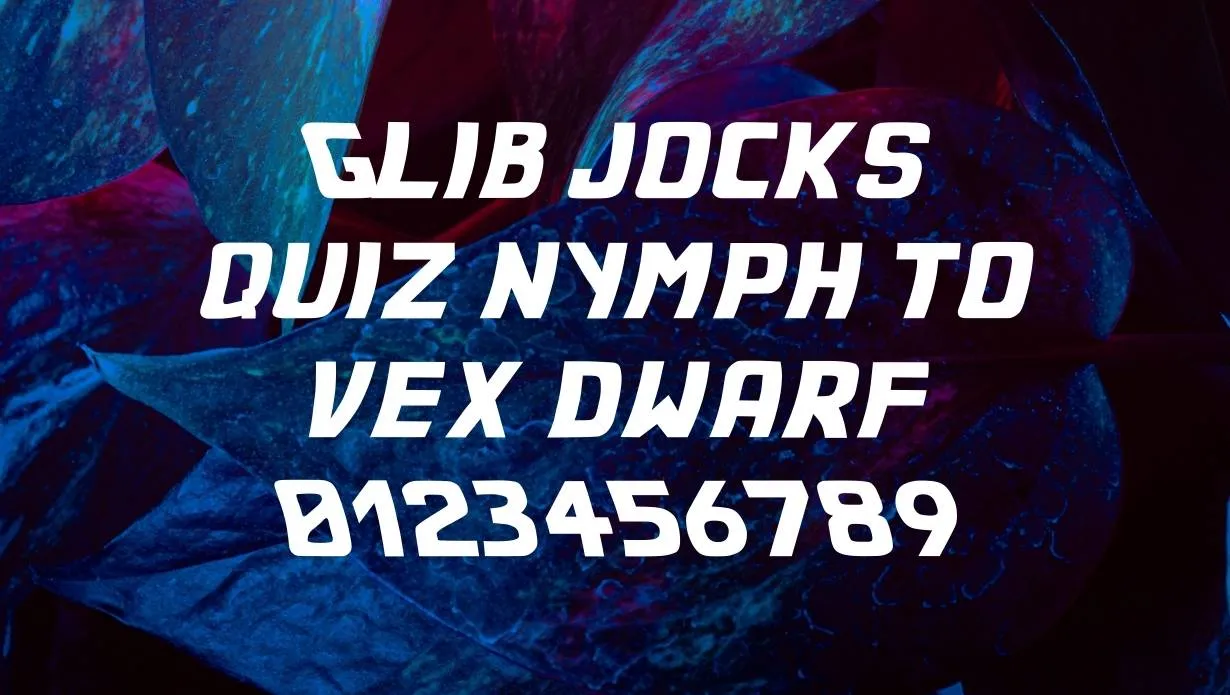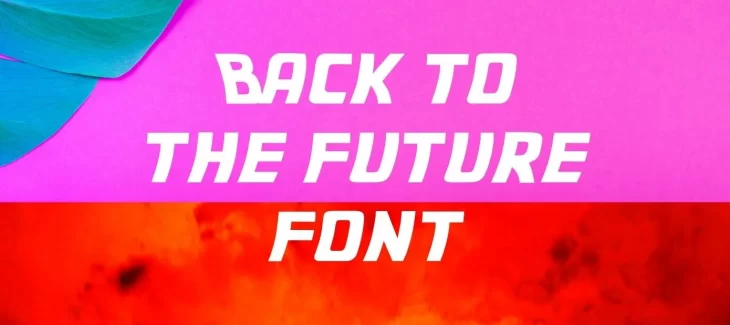
Back to the Future Font is a sans serif typeface that was created by designer Michael LaGattuta. The font is based on the lettering used in the movie posters for the Back to the Future trilogy.
This font is a typeface that was used in the popular 1985 film, Back to the Future. The font is perfect for any project that needs a bit of an ’80s feel. This font style may also be generated through an online font generator tool. The alternative font of this typeface is Patagonia Font.
Who Used Back to the Future Font?
This Font has been used in a variety of ways, including on movie posters, t-shirts, and websites. In recent years, the font has been used on several movie posters, including for the 2017 film, Baby Driver.
This font style is also perfect for making party flyers, invitations, and decorations. If you’re planning an ’80s-themed party, This font is a great way to add some authenticity to your event.
Back to the Future Font Family Appearance
| Name | Back to the Future Font |
| Designer | Michael LaGattuta |
| Style | Display |
What other fonts are similar to Back to the Future?
If you’re looking for a font that has a similar feel to this font is Airstream, Geneva, Helvetica, and Tahoma font.